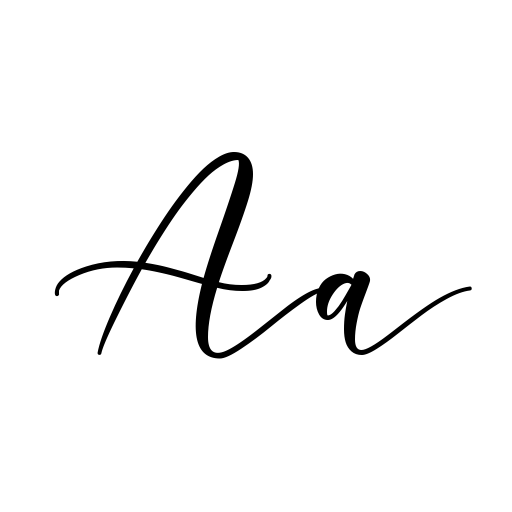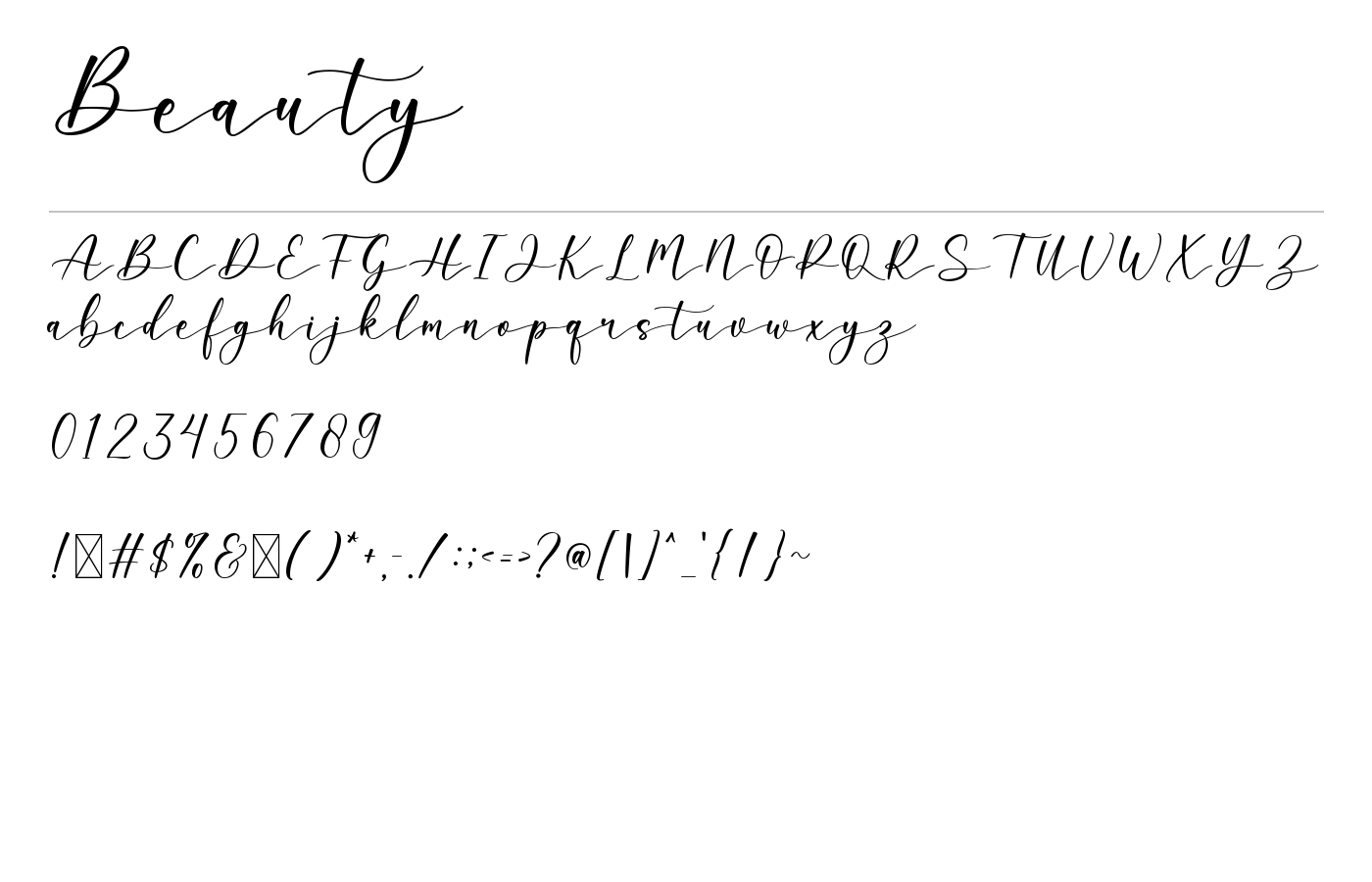
Beauty Font is a graceful script typeface characterized by its elegant, flowing strokes and delicate, handwritten style. Its light weight and smooth, slightly varied line thickness give it a romantic and sophisticated feel, making it perfect for branding in fashion, beauty, wedding invitations, and luxury packaging. This font shines in display use, adding a personal and stylish touch to logos, headlines, and decorative text.
Beauty Font
About Beauty Font